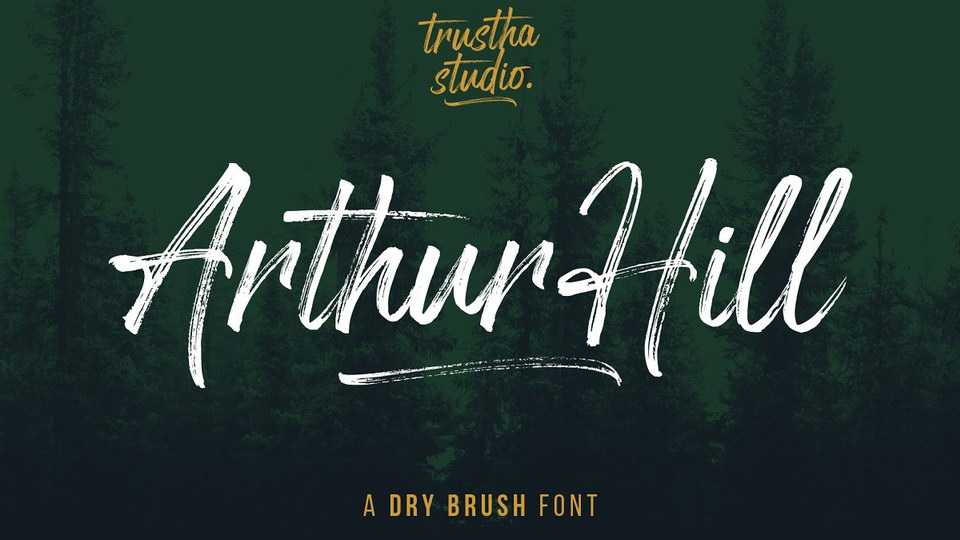
Download Arthur Hill font, a handwritten script with dry brush pen. Sharp details make Arthur Hill font perfect for branding, logo, advertising, poster, album cover, packaging, quotes, magazines and more!